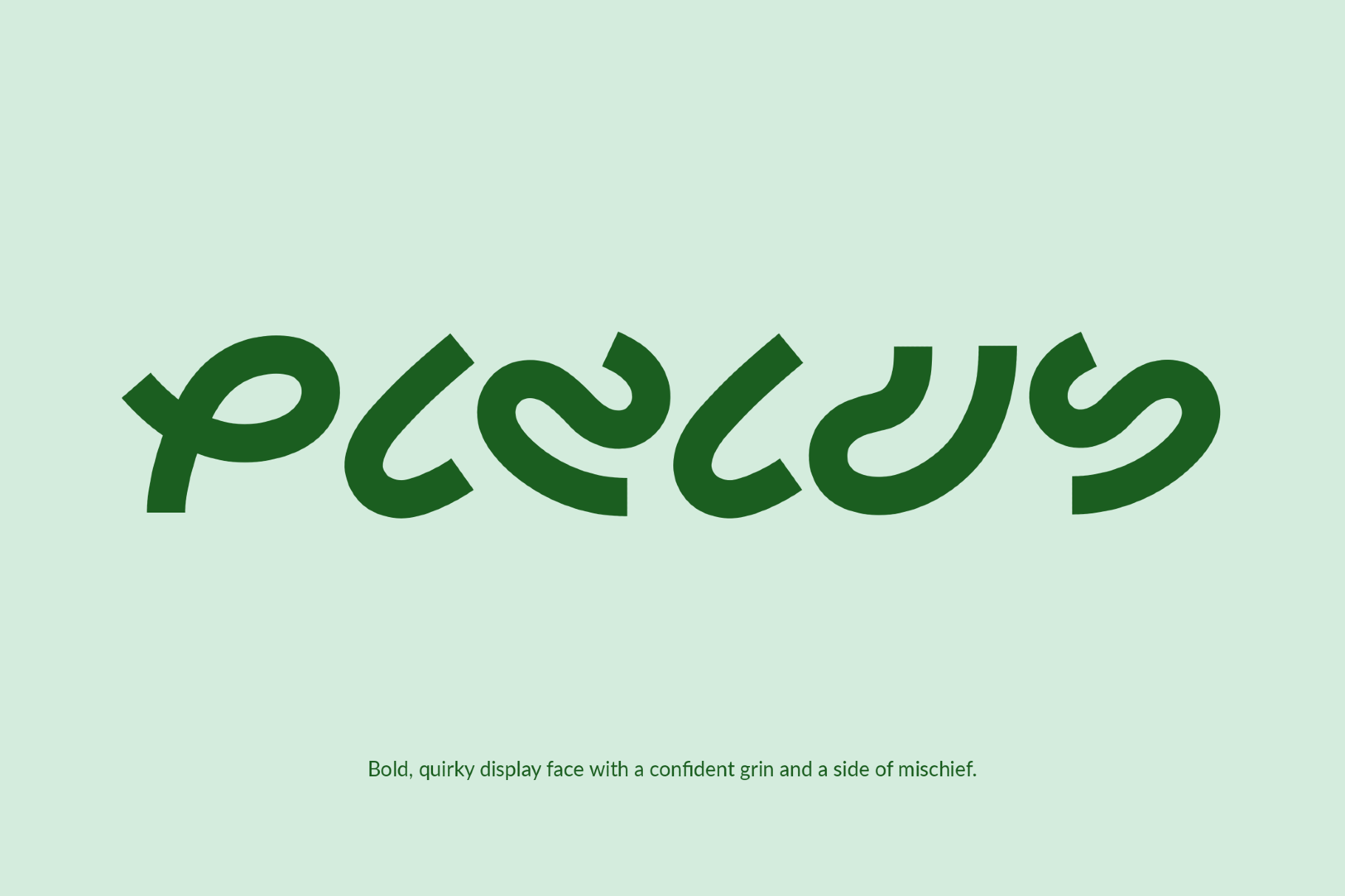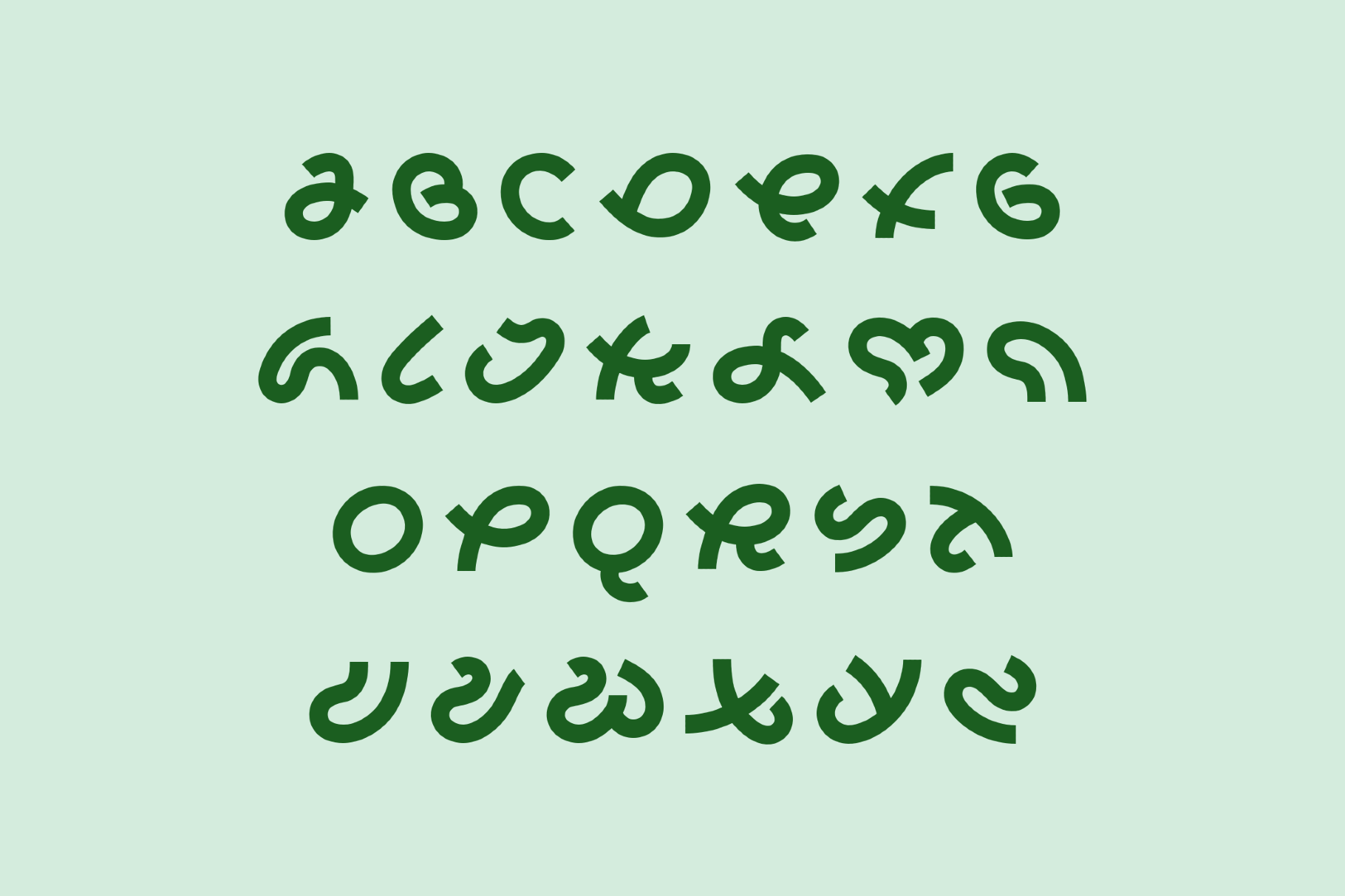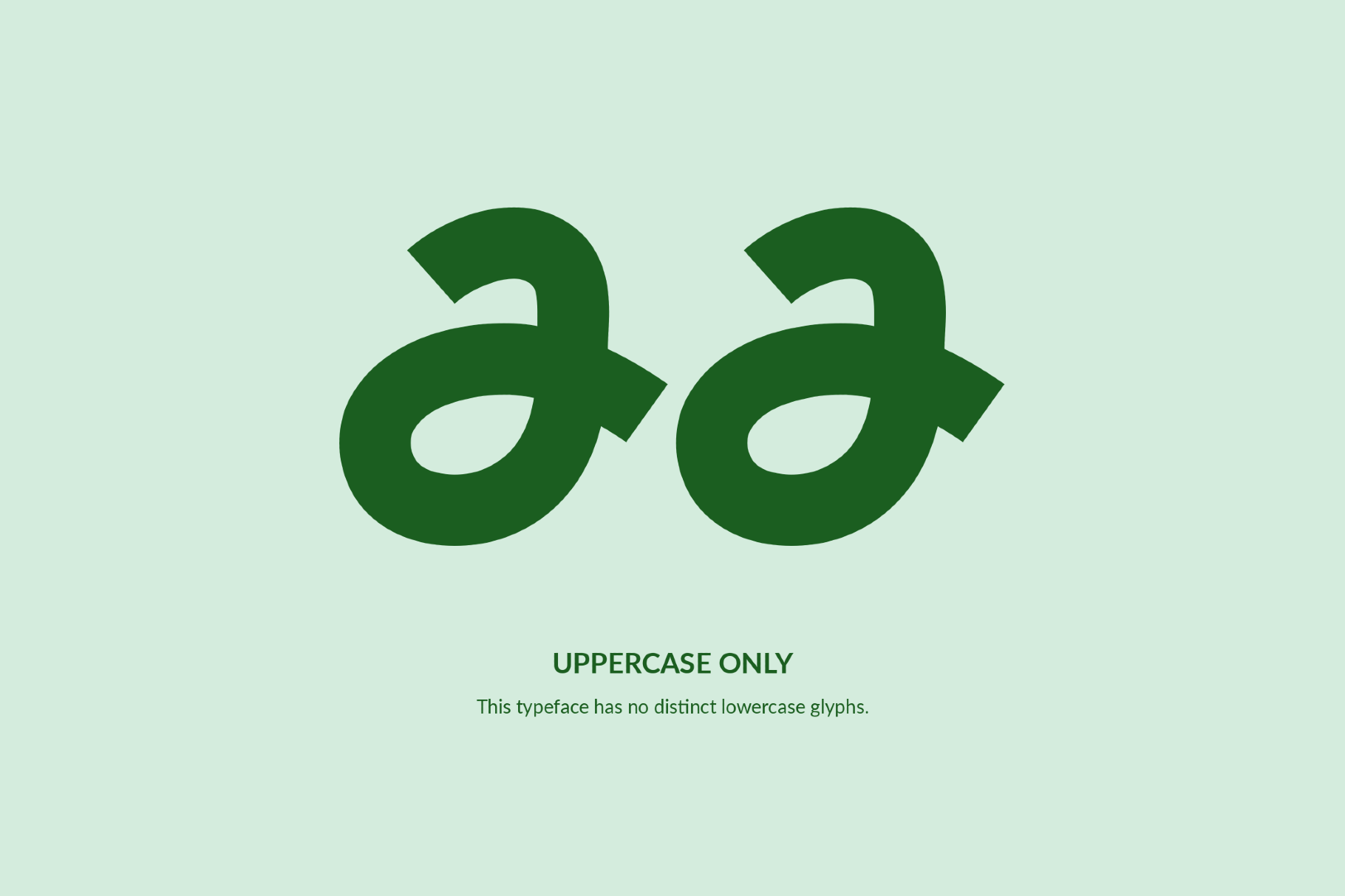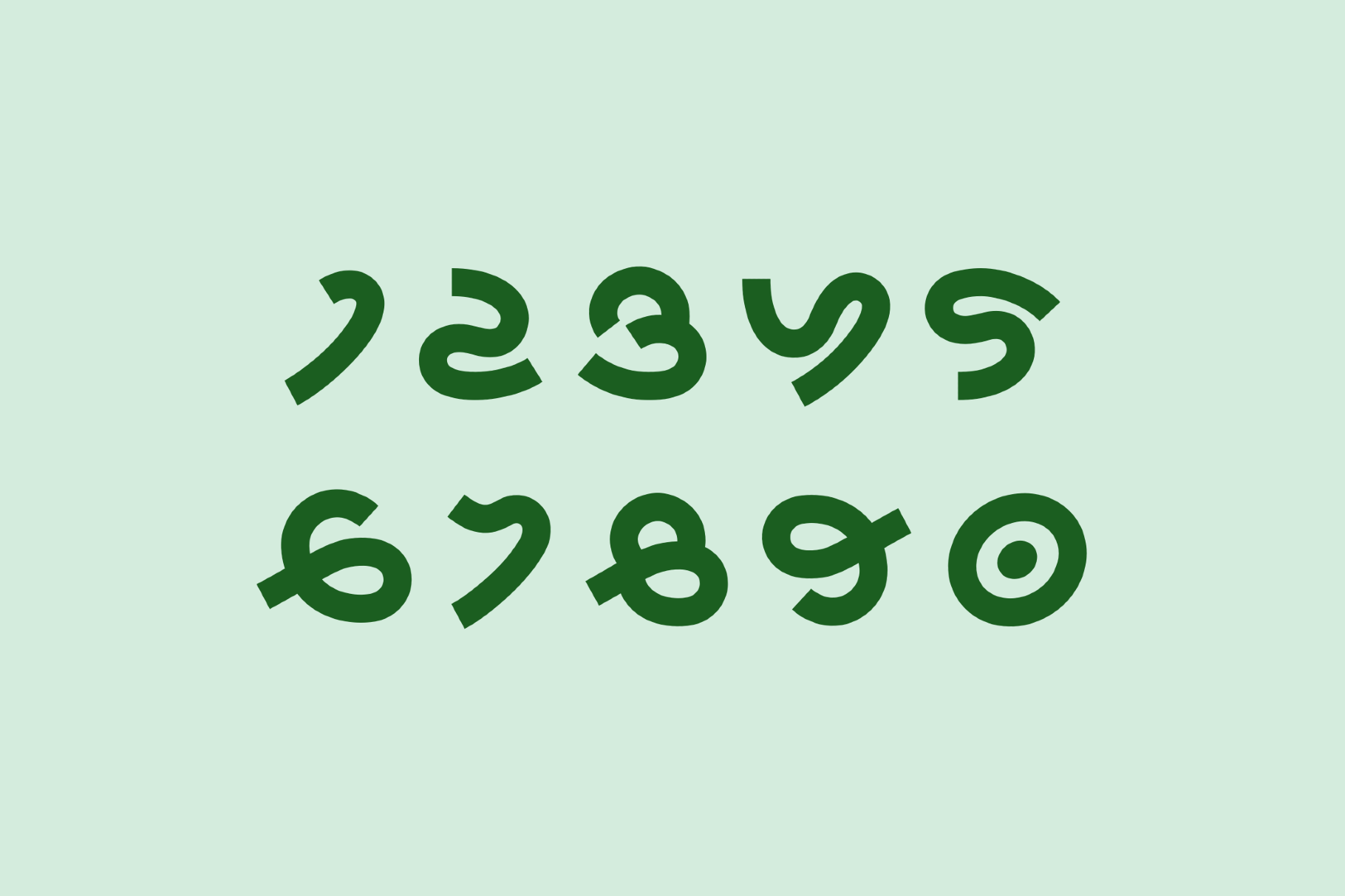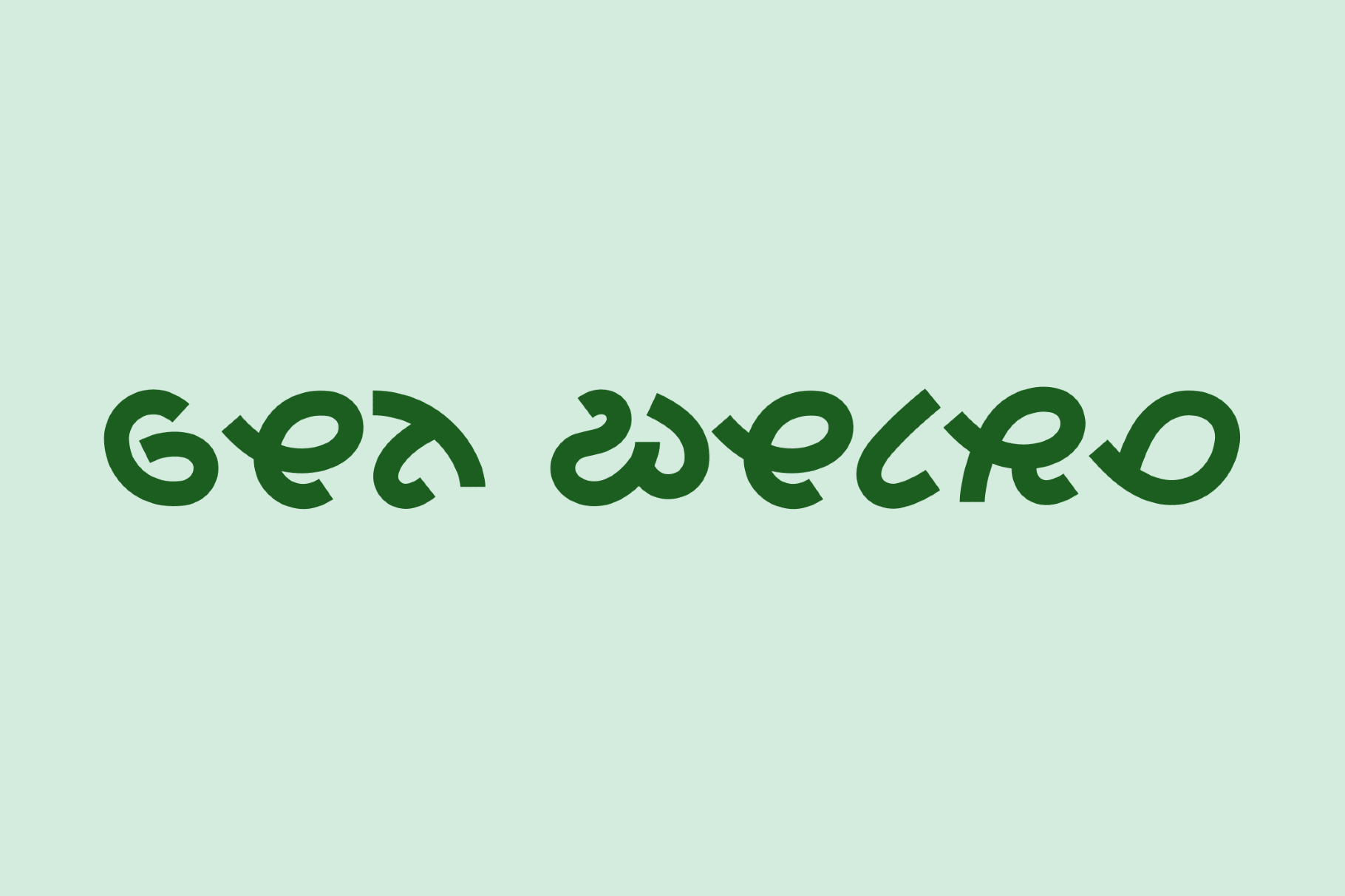
Pizius - Funny Experimental Font
This one is a rounded quirky font with the playful eccentricity of psychedelic poster lettering, sci-fi paperbacks and experimental graphics from the late 1960s. Its looping terminals give the alphabet a buoyant sway. Works beautifully for poster headlines, album covers, editorial titles, logo sketches, packaging, festival graphics, and social posts.